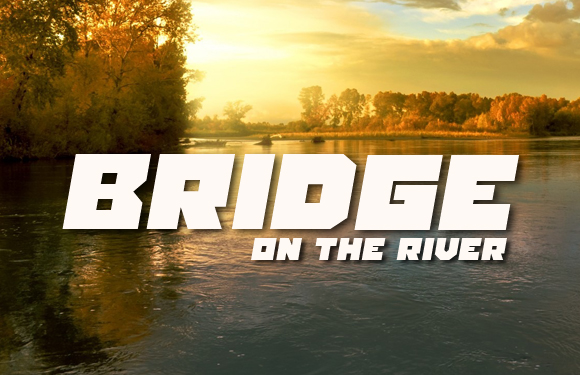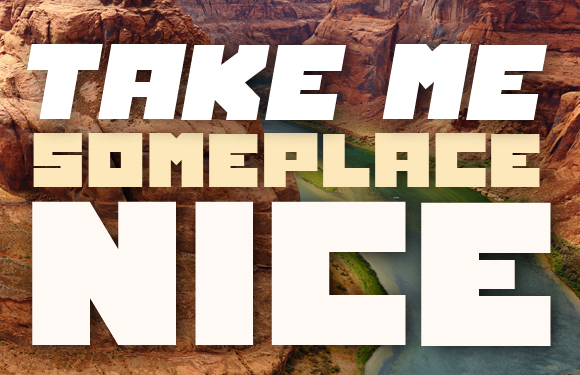
Introduction to Owners Font
Owners is a stunning blocky techno font, making it great for modern designs in print and web.
This font is legible and dynamic with the ability to elevate your designs in a stylish way .
Owners Font offers exceptional quality and versatility, making it a valuable addition to your design toolkit. Whether you’re creating for personal projects or commercial use, Owners Font delivers professional results.